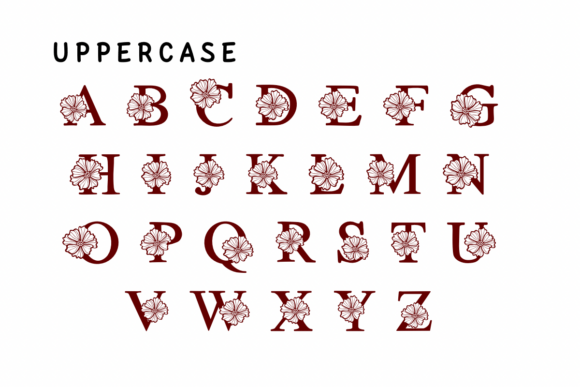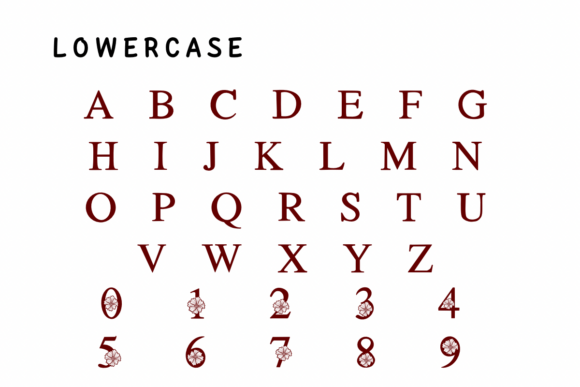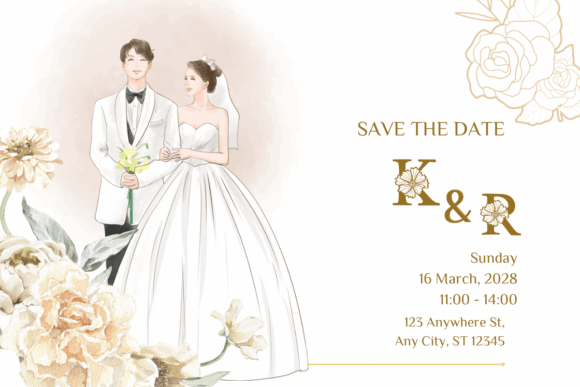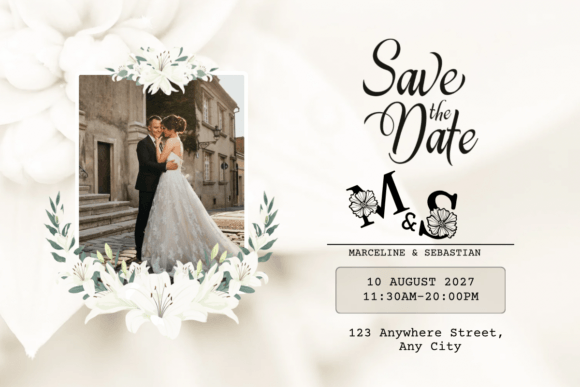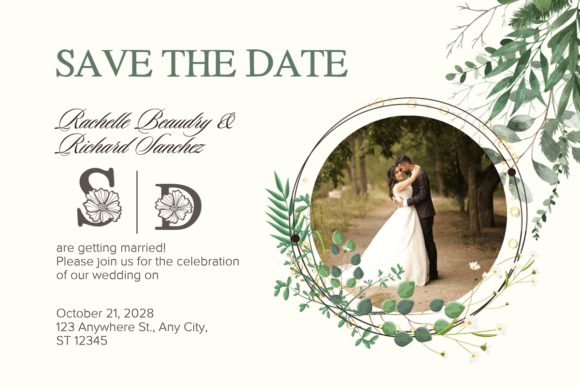
Cute Decorative Font: Add a Touch of Whimsy to Your Designs
Are you looking for a font that can add a touch of whimsy and charm to your designs? Look no further than the Cute Decorative font! This adorable font features delicate flowers and is perfect for a variety of creative projects. In this article, we’ll explore the many uses of the Cute Decorative font and provide tips on how to make the most of this beautiful font.
What is Cute Decorative Font?
Cute Decorative is a decorative font that features intricate flowers and elegant lines. This font is perfect for adding a touch of femininity and sweetness to your designs. The font is highly versatile and can be used for a wide range of projects, from personal to commercial.
Uses of Cute Decorative Font
The Cute Decorative font is perfect for a variety of creative projects, including:
- Note-taking and journaling: Add a touch of personality to your notes and journal entries with the Cute Decorative font.
- Diary writing: Make your diary entries more visually appealing with this beautiful font.
- Greeting cards: Create beautiful and unique greeting cards for special occasions using the Cute Decorative font.
- Banners and signs: Use the font to create eye-catching banners and signs for parties, events, and promotions.
- Social media posts: Add a touch of whimsy to your social media posts and make them stand out from the crowd.
- Mugs and water bottles: Create personalized and unique gifts with the Cute Decorative font.
- T-shirts and apparel: Design custom t-shirts, hoodies, and other apparel with this beautiful font.
- Stationery and invitations: Create custom stationery, invitations, and thank-you cards with the Cute Decorative font.
Tips for Using Cute Decorative Font
Here are some tips for making the most of the Cute Decorative font:
- Pair with other fonts: Pair the Cute Decorative font with other fonts to create a unique and visually appealing combination.
- Experiment with colors: Try out different colors and color combinations to find the perfect match for your design.
- Use it sparingly: Use the Cute Decorative font sparingly to add emphasis and create visual interest.
- Play with sizes: Experiment with different font sizes to create a visually appealing hierarchy.
Benefits of Using Cute Decorative Font
Here are some benefits of using the Cute Decorative font:
- Unique and eye-catching: The Cute Decorative font is sure to grab attention and make your designs stand out.
- Feminine and elegant: The font features delicate flowers and elegant lines, making it perfect for feminine and elegant designs.
- Versatile: The font can be used for a wide range of projects, from personal to commercial.
- Easily readable: Despite its decorative nature, the font is still easily readable, making it perfect for body text and headlines.
In conclusion, the Cute Decorative font is a beautiful and versatile font that can add a touch of whimsy and charm to your designs. With its delicate flowers and elegant lines, this font is perfect for a wide range of creative projects, from note-taking and journaling to designing banners and social media posts. By following the tips outlined in this article, you can make the most of the Cute Decorative font and create stunning designs that are sure to grab attention.